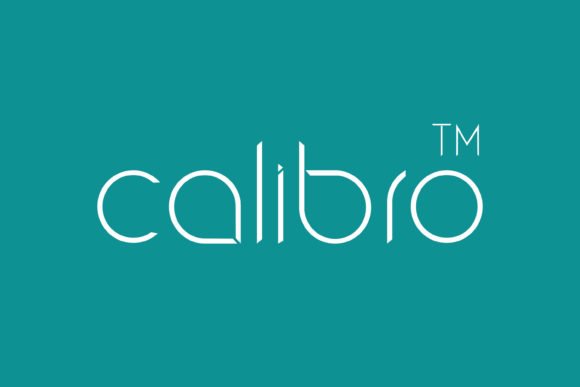
Have you ever stared at a blank page, waiting for inspiration to strike? That’s where the magic happens – when creativity meets the perfect tool to bring your ideas to life. For designers, the right font can be the difference between a good design and an exceptional one.
Enter the Calibro Font, a sleek and modern display font that’s designed to elevate your creative projects to the next level. With its clean lines and minimalist aesthetic, Calibro Font is the perfect choice for any project that requires a touch of sophistication and elegance. Whether you’re working on a branding project, a website, or a marketing campaign, the Calibro Font is an invaluable asset that can help you create stunning visual content that grabs attention and leaves a lasting impression.
Calibro Font Key Features
- Font Family: Calibro is a modern sans-serif font family designed for various applications, including digital interfaces, signage, and publications.
- Unique Characteristics: Calibro’s distinctive features include its geometric and clean design, making it suitable for modern and minimalist designs. It also offers excellent legibility and readability across various resolutions.
- Language Support: Supports a wide range of languages, including Latin, Cyrillic, Greek, and various languages that use the Latin alphabet with additional diacritics.
Review of Calibro Font
Overall, I found Calibro Font to be a solid, modern sans-serif font. It’s great for digital designs, especially when paired with bold typography.
- ✨ Clean lines and minimal ornamentation make it perfect for modern designs.
- ✨ The font is highly legible, even at smaller sizes, making it ideal for digital use.
- ✨ The bold and light weights provide good contrast and make it easy to create visually appealing typography.
- ⚠️ The font doesn’t have a lot of character variations, which might make it less interesting for more complex designs.
- ⚠️ Some users might find the font too minimalist, which can make it less engaging for certain projects.
- ⚠️ The font doesn’t have a lot of historical context or cultural significance, which might make it less appealing to designers who prioritize that aspect.
Overall, I would say that Calibro Font is a great choice for designers who want a clean, modern font that’s easy to read. While it may not be the most exciting font, it’s a solid choice for digital designs and can be used in a variety of contexts.
Common Use Cases for Calibro Font
Calibro Font is commonly used in:
- Graphic design and branding.
- Print and digital marketing materials.
- Website design and development.
Alternatives to Calibro Font for Designers
Montserrat is a sans-serif font designed by Julieta Ulanovsky. It is a modern, urban font that is perfect for creating a sleek and sophisticated look. Montserrat is great for use in titles, headings, and body text where a clean and modern feel is desired.
Compared to Calibro Font, Montserrat has a more geometric and minimalist design. While Calibro Font has a slightly more rounded feel, Montserrat is more angular and sharp. Montserrat is a great choice for designers who want a clean and modern look that is easy to read.
Open Sans is a sans-serif font designed by Steve Matteson. It is a highly readable font that is perfect for use in body text, titles, and headings. Open Sans is great for creating a clean and approachable look that is easy to read.